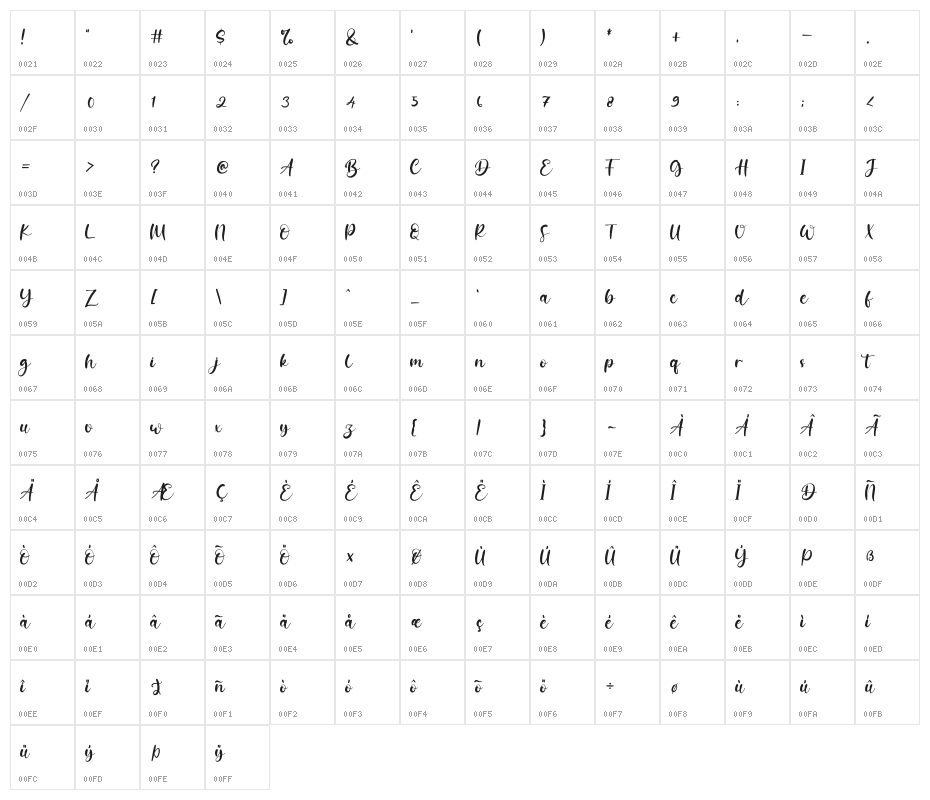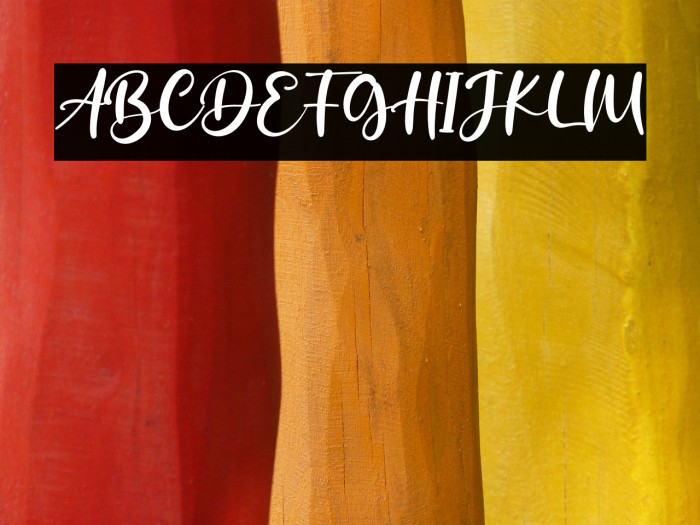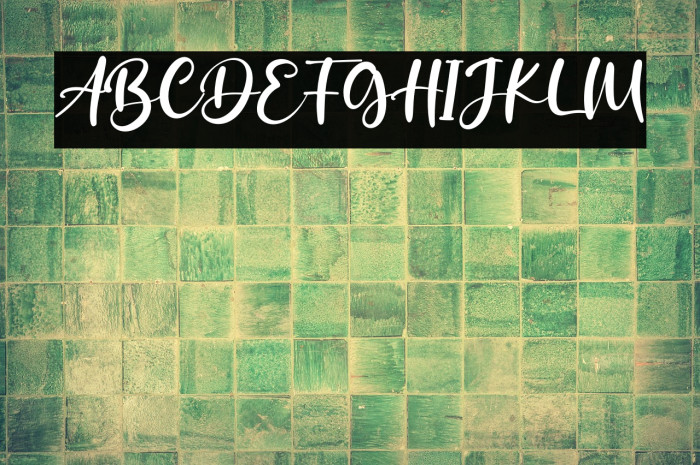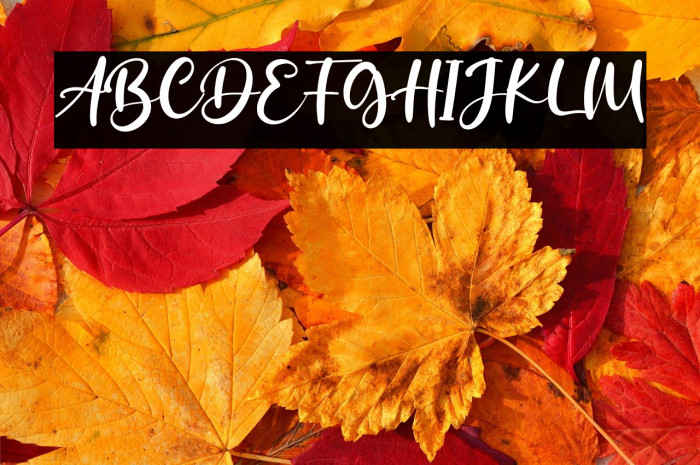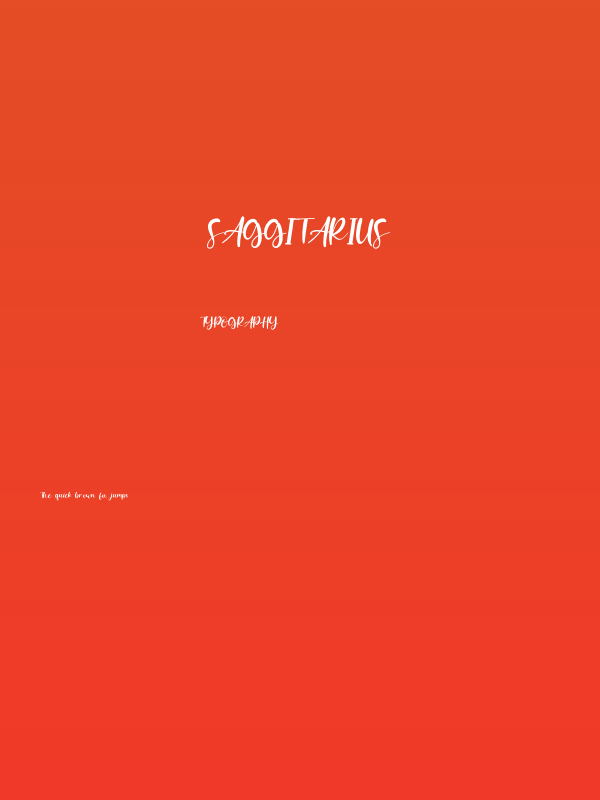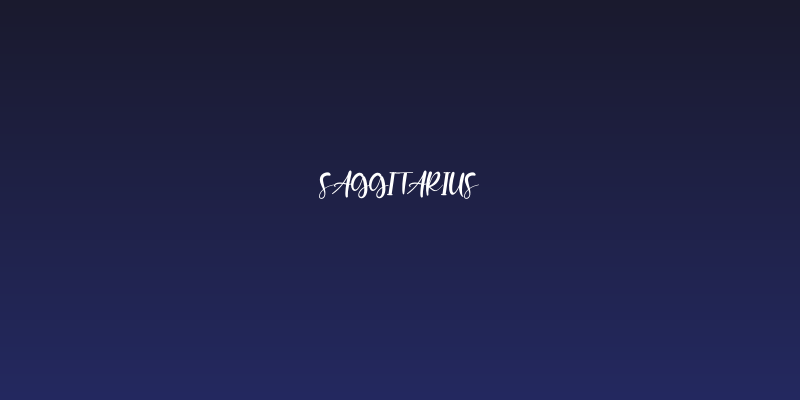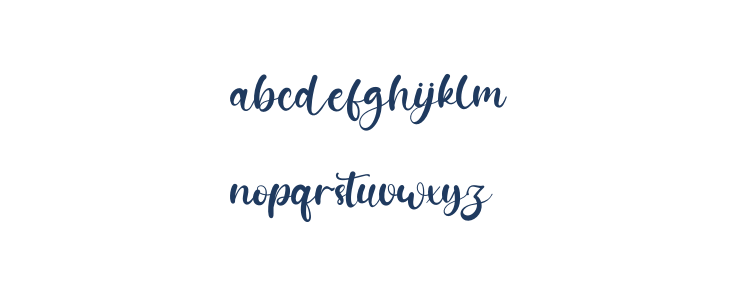
Saggitarius Font
Saggitarius Description
This font features an elegant and flowing script style, characterized by its smooth, cursive strokes and artistic flair. The uppercase letters are bold and expressive, with distinctive loops and swashes that add a touch of sophistication. The lowercase letters maintain a consistent flow, complementing the uppercase with their graceful curves. Numbers and special characters are designed to match the overall aesthetic, ensuring a cohesive look. The font's style is both modern and decorative, making it suitable for a variety of creative applications.
| Overall Style | Modern, Decorative |
| Use Case | Logos, Invitations, Branding |
| Proposed Projects | Ideal for wedding invitations, branding, greeting cards, and elegant logos. |